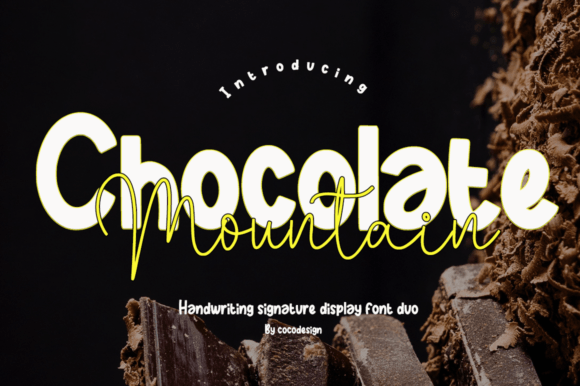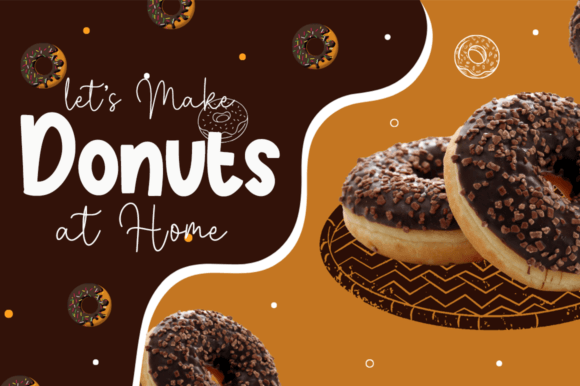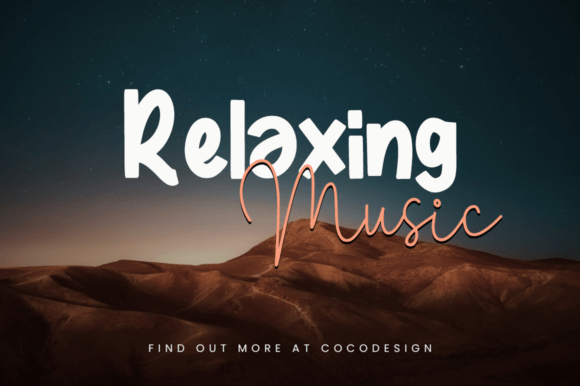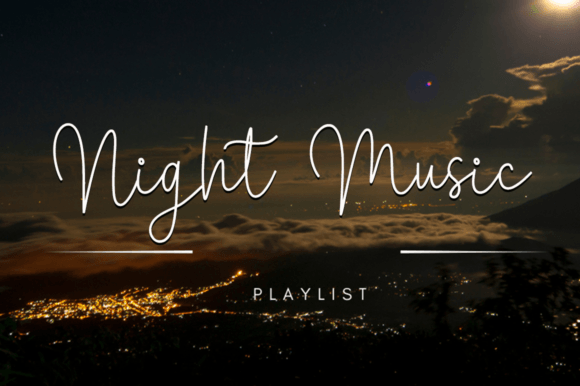
Chocolate Mountain Font: A Cute Handwritten Script!
About the Chocolate Mountain Font
From logos to headlines, the Chocolate Mountain Font is the perfect choice for making a lasting impression. Chocolate Mountain, an enchanting handwritten script font duo with a calligraphy design! Enriched with a unique Regular variant, it effortlessly exudes casual elegance accentuated by an artistic swash. Its versatility shines through in a wide range of applications—from enhancing logos and product packaging to sprucing up wedding invitations. Unleash its charm in your branding, headlines, signage, and labels. It also adds a personalized touch to signatures, book covers, posters, and even adds depth to your favorite quotes. Discover the diverse applications of the Chocolate Mountain font duo and let your creativity soar!